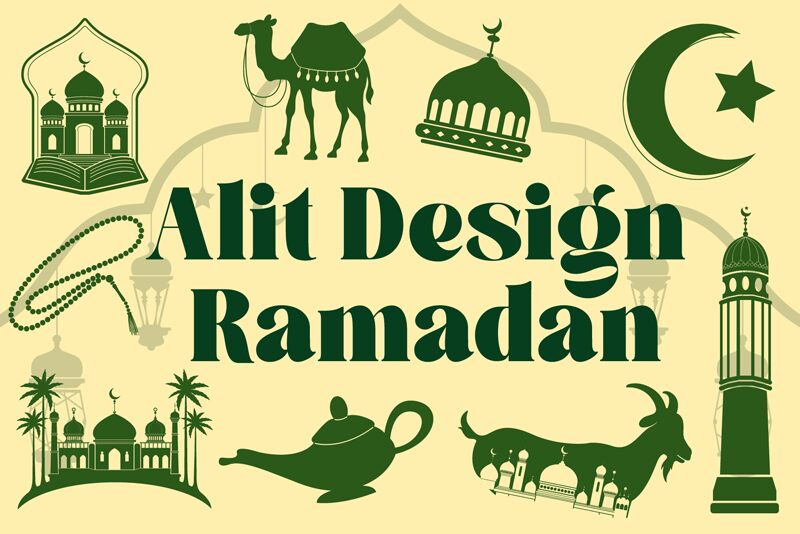
Bahlull Dingbats font family by Alit Design is an expressive, decorative font family that includes 2 font styles. This baroque-inspired font balances style and elegance thanks to its carefully crafted letterforms, each of which has its own identity and personality. Its sophisticated tone makes it a premium choice for projects in which the written word has to stand out.
Bahlull Dingbats is an excellent choice for poster and magazine front covers, greeting cards, invitations, book covers, company websites, business cards, film titles, or logotypes. Reap the benefits of using this creative font in any other printed or digital project of your choice.